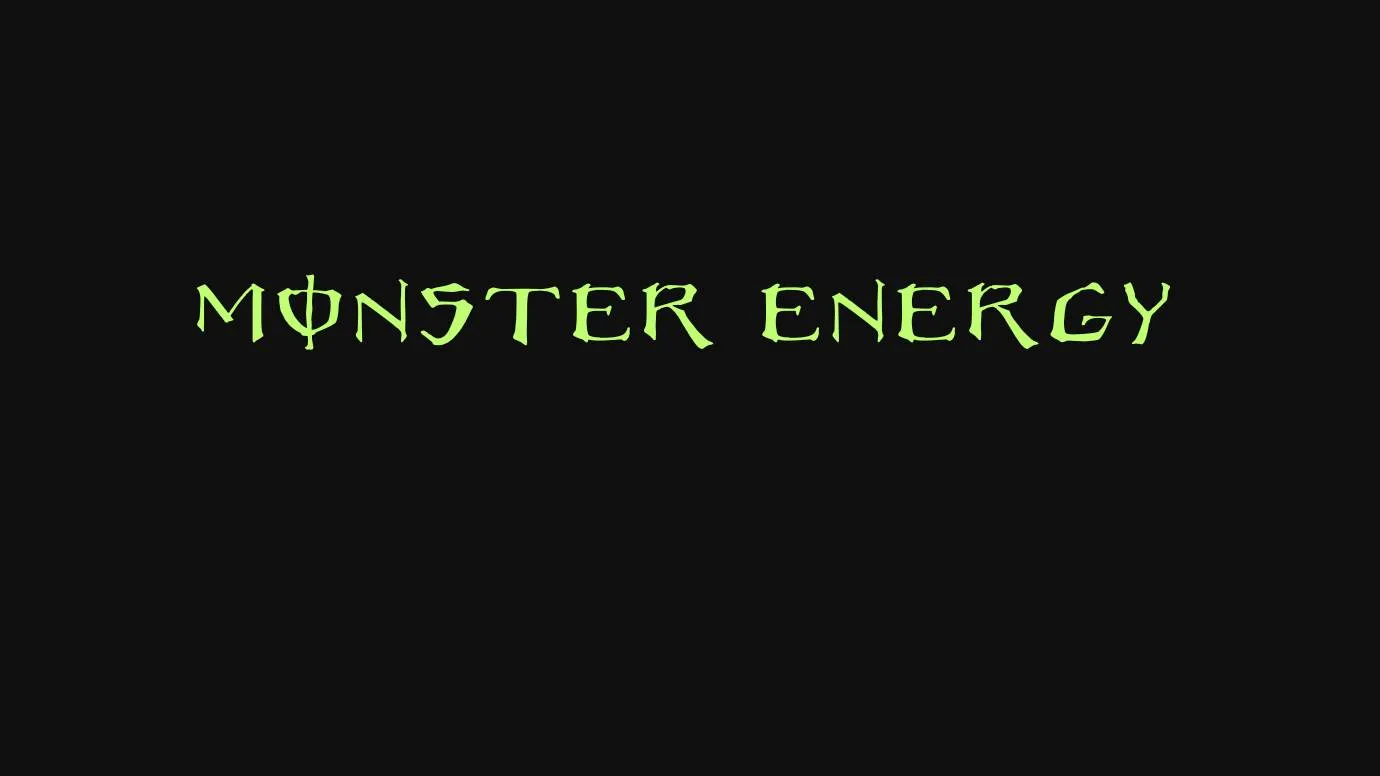
Monster Energy Font Family was designed by Max Infeld and manufactured by Xerographer. You can make all personal and commercial projects as well. This unique font was specially designed for a famous energy drink which was named Monster Energy Drink. It is available in both formats True Type Font and Open Type Font so it can be used on many devices such as Windows, PC, and Mac.
An online generator tool also supports this font in which you can convert your simple text into this font by copying and pasting your data into it and seeing the amazing results on your screen. You can also use it for pairing with other fonts such as aquire font to give a more attractive look to your projects. It has one regular style with a scary effect which looks more energetic.
- To make attractive banners, posters, flyers, flexes, and brochures you can use this font. It is best for making both print and digital media projects.
- This typeface is good for all types of advertisement purposes you can utilize it for branding and product packing.
- It can also be utilized for making logos and titles of horror movies or video games. For making attractive thumbnails of YouTube channels this font is also a good option.
This interesting font was designed by Max Infeld and manufactured by Xerographer. The look of this font is very attractive.